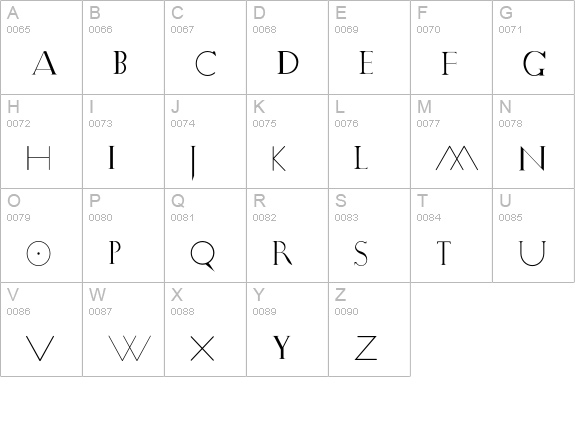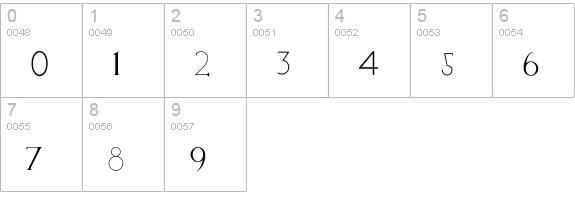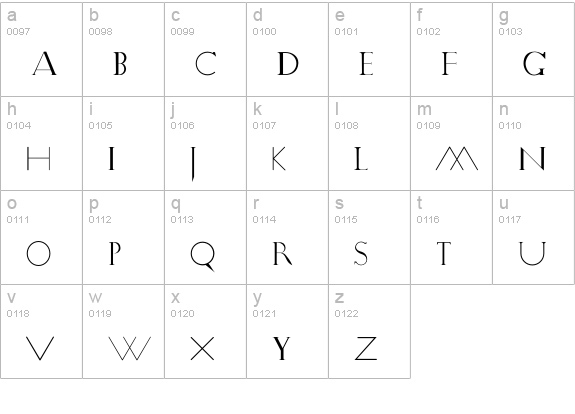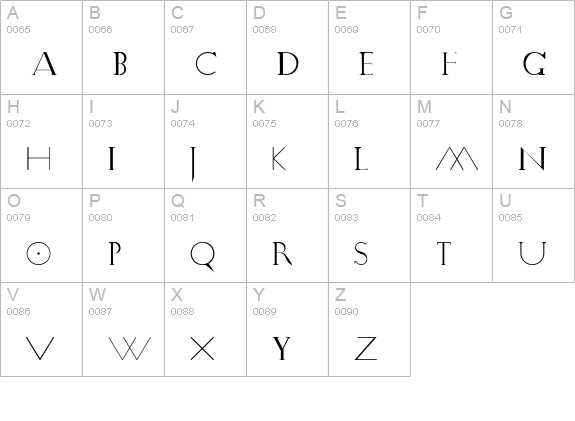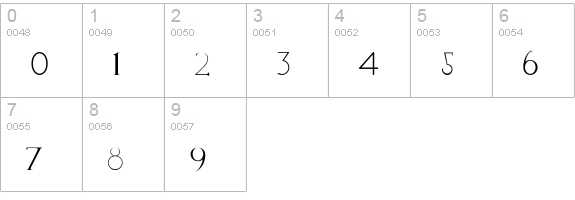
Drone Font Details
Drone font is a modern and sleek typeface that combines futuristic elements with a contemporary design. With its clean lines and sharp edges, this font is perfect for projects that require a cutting-edge and sophisticated look. Whether you're designing a tech website, a sci-fi poster, or a sleek logo, Drone font will add a touch of modernity to your work. The best part? Drone font is completely free to download at FontsMarket.com. So you can elevate your design projects without breaking the bank. Don't miss out on this amazing opportunity to add a touch of sophistication to your designs with the stylish and versatile Drone font. Download it today and take your projects to the next level!